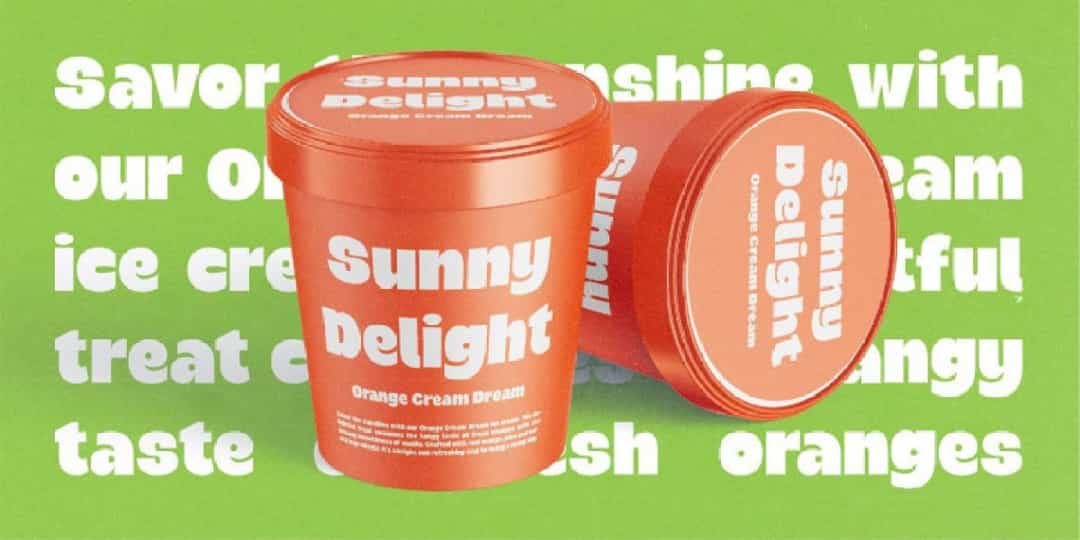
Panaticon Font
Panaticon is an original modern retro display font, which combines the reminiscence of the past and the outlook of the future. This font aims at giving a sense of retro style while still being used in the current world to give a unique and flexible appearance to several works.